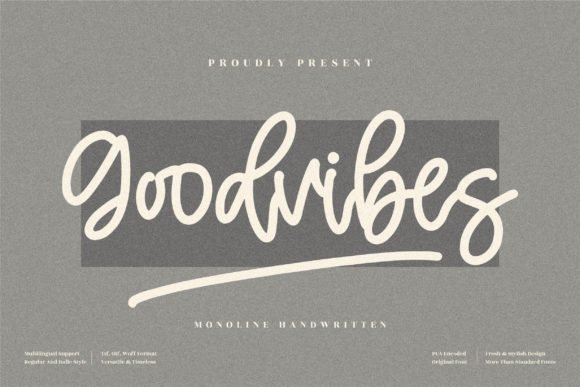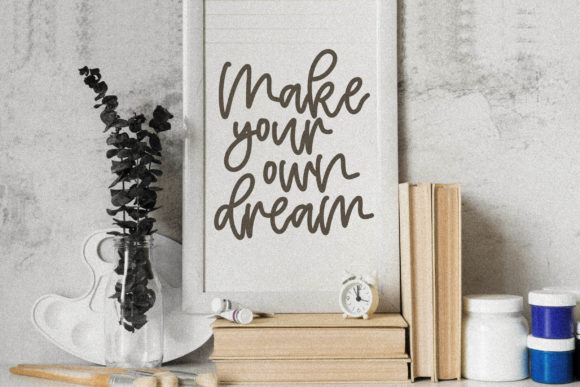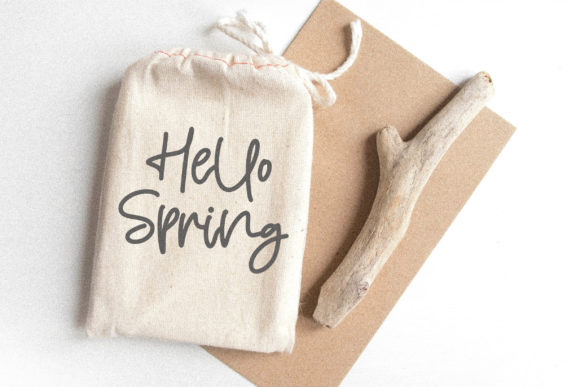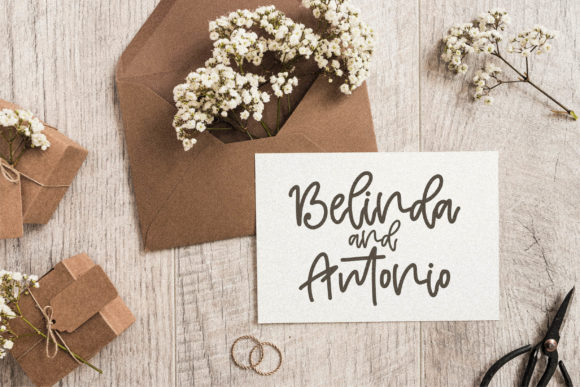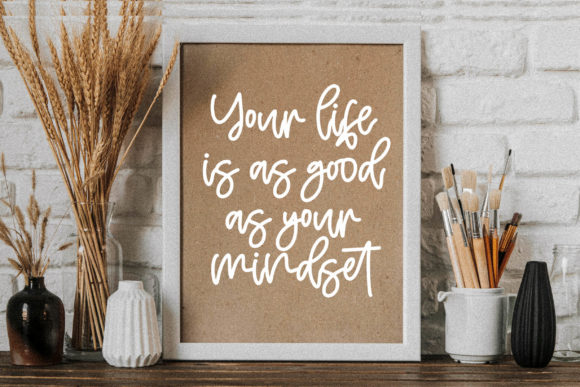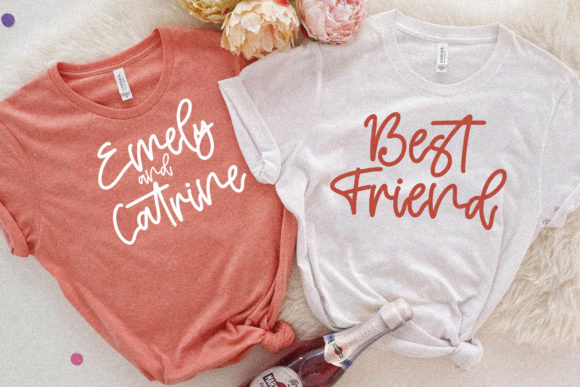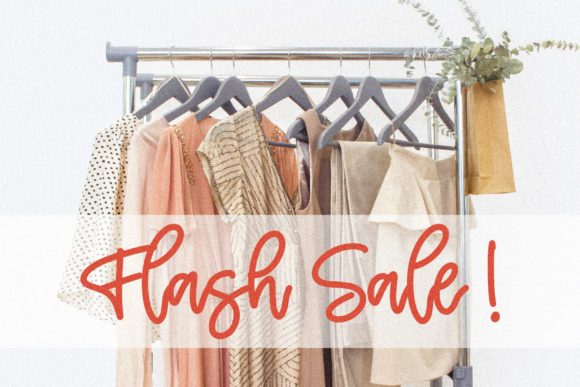
When Inspiration Strikes
Have you ever been sipping your morning coffee, flipping through a design magazine, and suddenly, an idea hits you? You envision a beautiful, handwritten font that perfectly captures the essence of your creative project. For many designers, this is a familiar moment of inspiration – the spark that sets the wheels turning and the imagination running wild.
For those who have experienced this moment, we have some good news: your search for the perfect font is over. Introducing the Goodvibes Font – a sweet and friendly handwritten font that embodies the natural and unique style you’ve been searching for. Its versatility makes it the perfect fit for a wide range of designs, from invitations to branding materials.
With the Goodvibes Font, the possibilities are endless. Whether you’re a seasoned designer or just starting out, this font offers the creative freedom to bring your ideas to life in a way that’s uniquely yours. So why settle for anything less? Let the Goodvibes Font be your go-to companion for all your design needs.
- Unique Characteristics: Goodvibes Font features a unique blend of modern and vintage elements, with a focus on clean lines and subtle curves, making it perfect for branding and design projects that require a touch of sophistication
Designer Review: Goodvibes Font
As a designer, I’ve had the chance to play around with Goodvibes Font, and I’ve got some thoughts to share.
- Goodvibes Font has a unique, hand-drawn feel that’s perfect for creative projects.
- The font is highly legible, making it easy to read even at small sizes.
- The font family is well-designed, with a consistent look across different weights and styles.
- Goodvibes Font is highly customizable, allowing designers to tweak the font to fit their specific needs.
- The font may not be suitable for formal or professional projects, due to its casual and playful vibe.
- The font family is not as extensive as some other popular fonts, which may limit its versatility.
- Some users may find the font’s unique feel too quirky or distracting.
Overall, I think Goodvibes Font is a great choice for designers looking for a unique and creative font. While it may not be suitable for every project, it’s perfect for projects that need a little extra personality and flair. With its high legibility and customization options, Goodvibes Font is definitely worth checking out.
For optimal results, use the Goodvibes font for headings, titles, and emphasis. It’s also suitable for branding, packaging, and digital design projects.
Experiment with different font sizes, colors, and styles to create a cohesive visual identity.